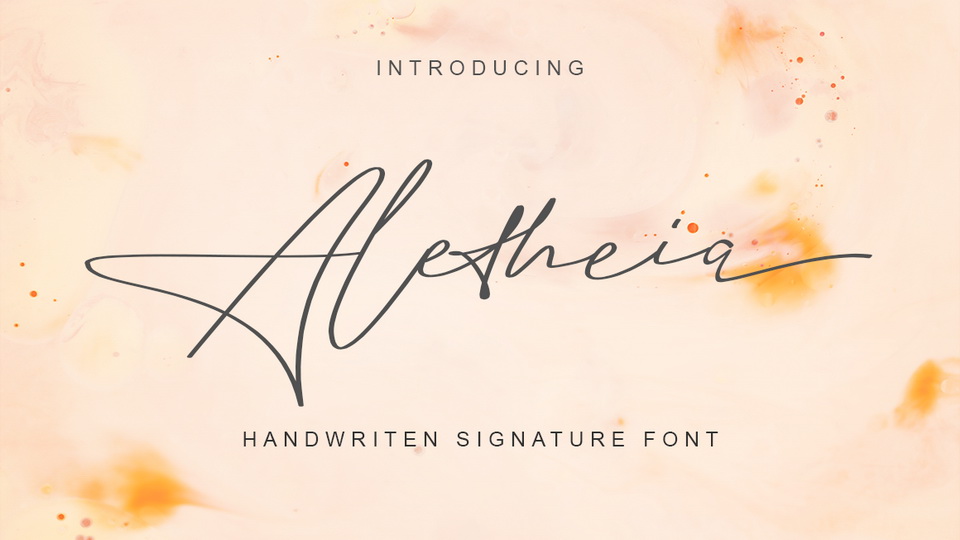
Feb 10, 2025Script & HandwrittenAletheia Script Aletheia is a stylish handwritten signature font. Aletheia is perfect for branding, photography, invitations, quotes, watermarks, advertisements, product designs, labels, and much more! Font DetailsDesigned by: Green Adventure StudioWebsiteLicense: Free for personal use Download Aletheia ScriptFile size: 148.06 KBCreated: February 16, 2025Updated: February 16, 2025 Download Explore similar fonts Mowgli Script Font Photographer Script Font Avelina Script Font Amichan Script Font Arthur Meridian Font Aesthetic Shine Font # Casual# Handwriting# Signature More fonts by Green Adventure StudioAstagina Signature Font